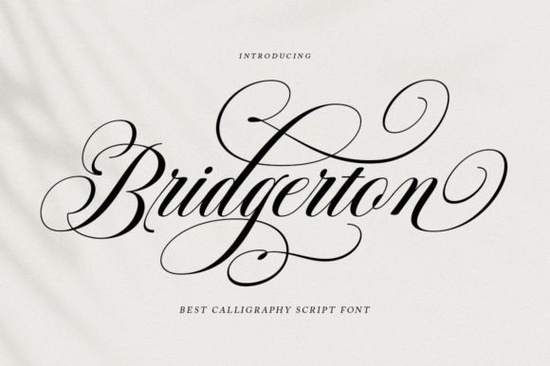
If you’ve been searching for a script font that blends old-world charm with modern readability, the Bridgerton Font might be exactly what your next project needs. It’s designed with flowing, elegant letterforms that feel both luxurious and approachable perfect for wedding invites, boutique branding, or even packaging that wants to whisper sophistication without shouting.
What makes this font stand out is how it handles detail. The characters connect in ways that feel natural, not forced like ink gliding across parchment. There’s a soft femininity to it, but not in a cutesy way. Think candlelit ballrooms, handwritten love letters, or artisanal chocolate labels. It’s the kind of typeface that doesn’t just sit on the page it performs.
This isn’t just for professional designers. If you run a small Etsy shop selling custom stationery, create logos for local boutiques, or design social media templates for clients, this font adapts beautifully. Print-on-demand sellers will appreciate how well it scales whether it’s embroidered on a tote bag or printed tiny on a jewelry tag, the strokes stay crisp.
Crafters who make vinyl decals or heat-transfer designs also benefit from its clean lines. Because the letter connections are intentional and smooth, you won’t get weird overlaps or gaps when cutting. And if you’re designing something like a novel cover or magazine spread, the Unicode PUA encoding means you can access all stylistic alternates using basic tools like Font Book (Mac) or Character Map (Windows). No need for Illustrator plugins or complex workflows.
Not all script fonts play nice in real-world applications. Some look gorgeous as headlines but become illegible at smaller sizes. Others feel stiff or overly ornate. Bridgerton strikes a balance decorative enough to feel special, but grounded enough to remain readable.
If you’ve tried fonts like Swift Marker, which leans more casual and hand-drawn, or Backpack, which has a playful outdoor vibe, you’ll notice Bridgerton sits at the opposite end of the spectrum: refined, poised, and quietly glamorous. It pairs especially well with minimalist sans-serifs or delicate serif fonts for contrast.
For those who love handmade textures, you might also enjoy Handmade With Love or Kids Crayon for more whimsical projects. But when the mood calls for elegance think bridal showers, perfume labels, or high-end café menus Bridgerton delivers without pretension.
One thing to note: while the font includes tons of alternate characters and ligatures, you don’t need fancy software to access them. Just open your system’s character viewer, copy the glyph you want, and paste it into your text box. Works in Canva, Photoshop, Affinity, Silhouette Studio even Microsoft Word.
- Wedding & Event Stationery Invitations, place cards, menus. The flowing style feels romantic without being cliché.
- Luxury Branding Perfume bottles, skincare packaging, boutique logos. It adds instant polish.
- Book Covers & Titles Especially historical fiction, romance novels, or lifestyle magazines.
- Food & Beverage Menus Coffee shops, bakeries, wine labels. It suggests craftsmanship and care.
- Personalized Gifts Monogrammed towels, engraved jewelry, framed quotes. The script feels intimate and thoughtful.
And if you’re working on something cultural or artistic say, a poster for a theater production or a poetry chapbook pairing Bridgerton with something like Halimun (which has an ethereal, mist-like quality) can create beautiful visual harmony.
Before you commit, test how the font behaves with your most-used words. Some script fonts look great with “Love” or “Forever” but fall apart with tricky letter combos like “fl” or “tt.” Bridgerton handles these smoothly, but it’s always smart to preview your actual content.
Also, consider layering. This font shines brightest when given breathing room. Avoid cramming it into tight spaces or pairing it with other scripts let it be the star. A simple background, generous leading, and maybe one complementary font for body text? That’s all you need.
Pro tip: Try typing your phrase in all caps first. Many script fonts lose their charm in uppercase, but Bridgerton holds up surprisingly well useful for monograms or short impactful headlines.
Whether you’re designing for clients or just for fun, this font brings a touch of quiet luxury that’s hard to replicate. Sometimes, the right typeface doesn’t need to shout it just needs to shimmer.